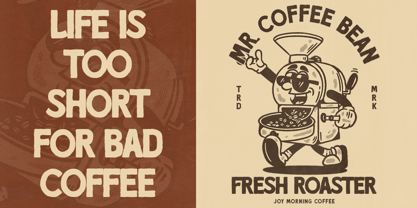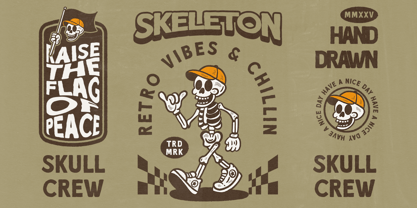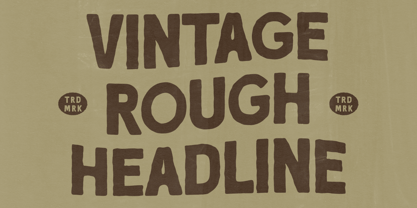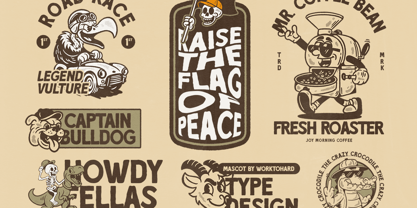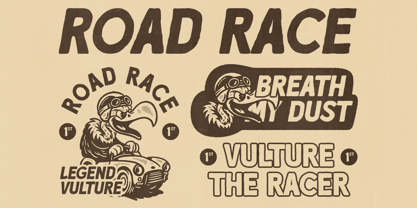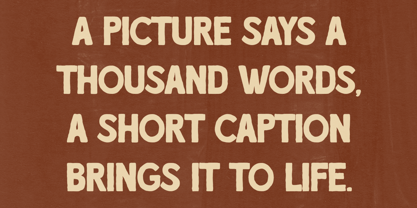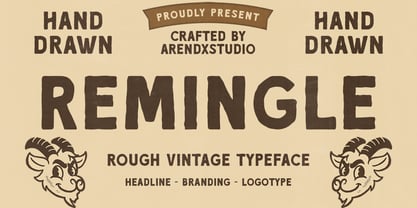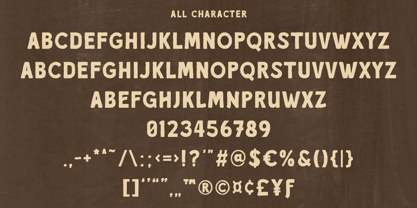
Remingle
by Arendxstudio
The Remingle Font Family was designed by Asep Rendi and published by Arendxstudio. Remingle contains 1 styles. More about this family
Remingle is a hand-drawn rough vintage typeface crafted by Arendxstudio, designed to bring character and authenticity to your projects. With its textured, bold letterforms and handcrafted appearance, Remingle evokes a classic retro feel perfect for headlines, branding, logos, and editorial design.
This font embraces imperfection with charm, offering a raw, organic aesthetic that stands out. Whether you’re working on nostalgic packaging, a vintage-themed poster, or an eye-catching logotype, Remingle adds personality and warmth with its rugged, hand-crafted style.
Features : Uppercase and lowercase characters
Numerals and Punctuation (OpenType Standard)
Accents (Supports Multilingual Characters)
Designers: Asep Rendi
Foundry: Arendxstudio